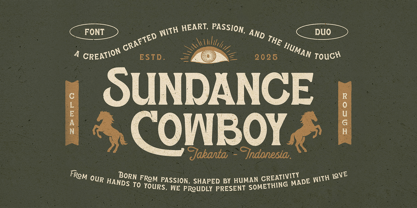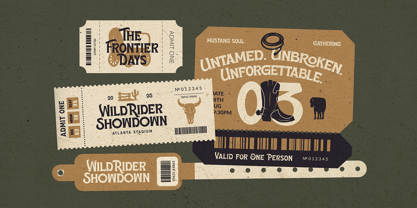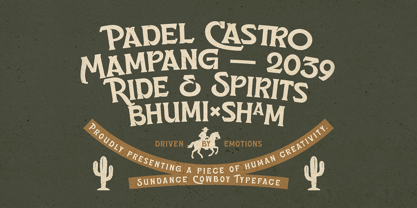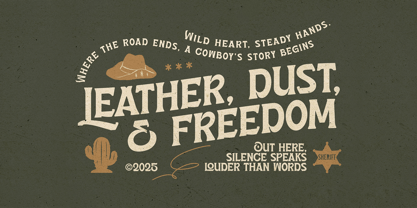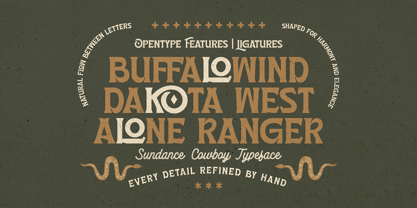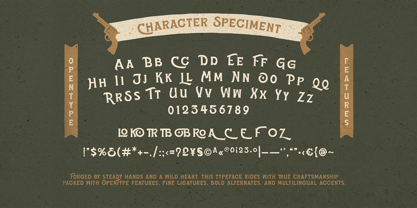
Sundance Cowboy Rough
The Sundance Cowboy Rough Font Family was designed by Hermansyah and published by Get Studio. Sundance Cowboy Rough contains 4 styles and family package options. More about this family
Sundance Cowboy is a bold display serif inspired by the untamed freedom of the frontier—crafted with texture, warmth, and a story to tell. Each letter rides with handcrafted character, echoing desert winds, saddle leather, and timeless Americana spirit. It’s confident, rugged, and soulful—made for designers who want their message to feel alive with heritage and presence. To complete the journey, this font comes paired with Heartstrong, a soft monoline script that adds contrast and emotional balance. Use Sundance Cowboy for strong headlines and bold identity work, and Heartstrong for signatures, taglines, quotes, or branding touches that feel personal and human. Together, they form a harmonious duo—grit and grace, boldness and sincerity—ready to elevate everything from packaging and posters to apparel, logos, and storytelling visuals.